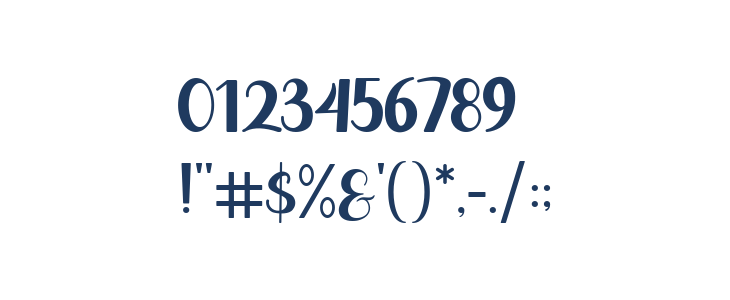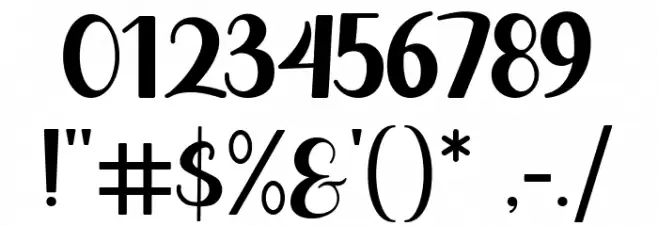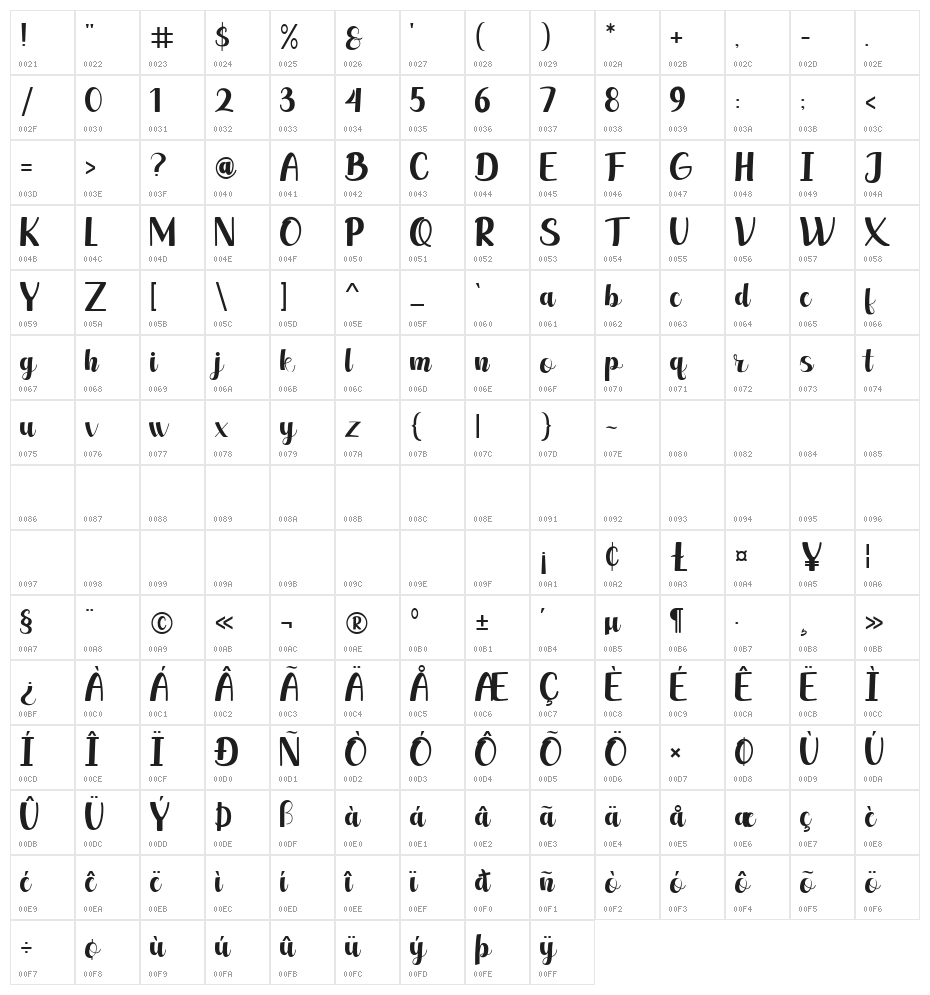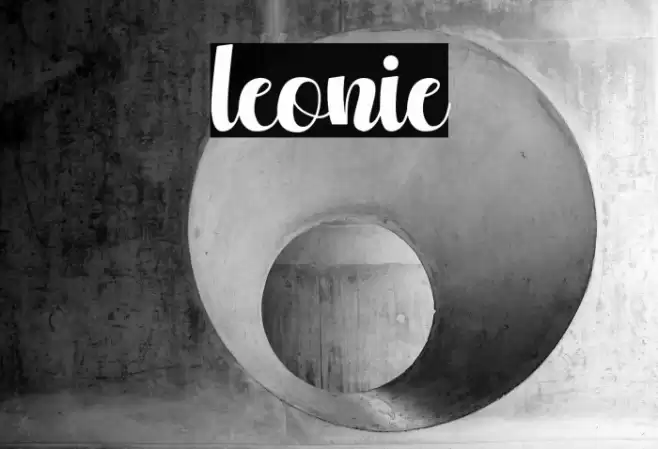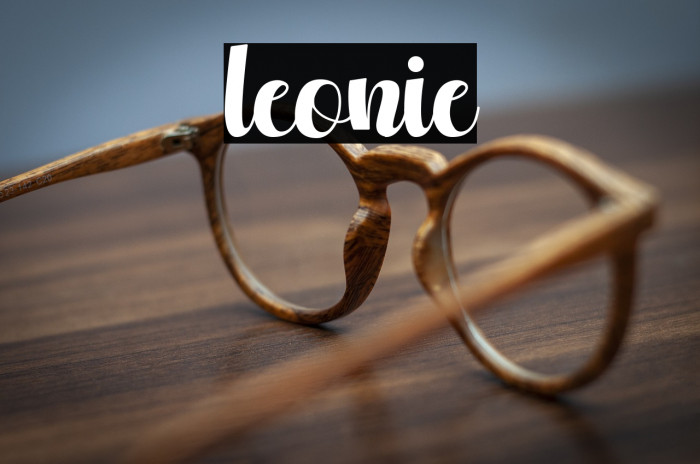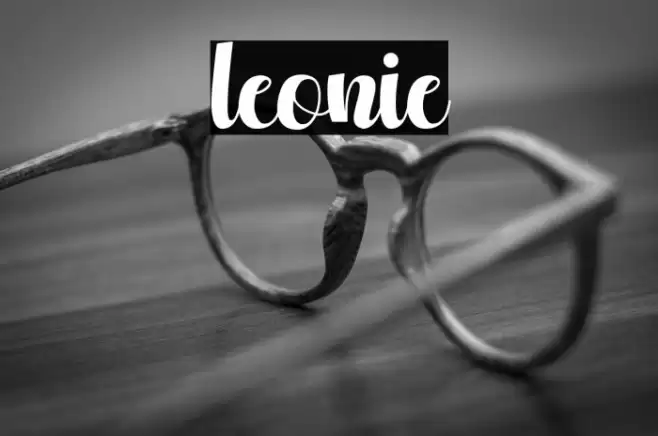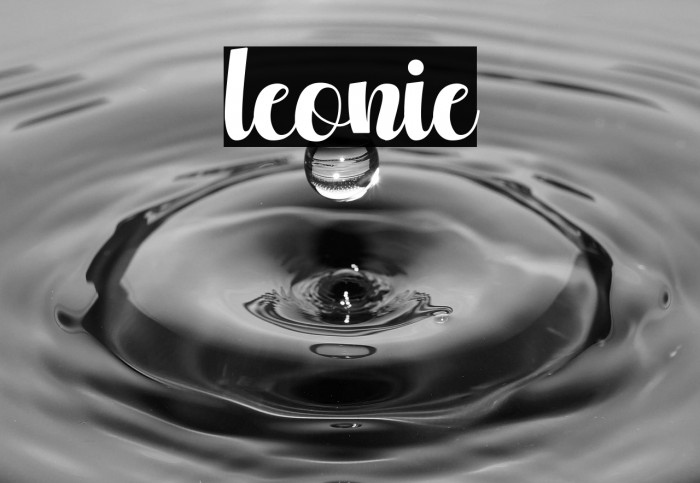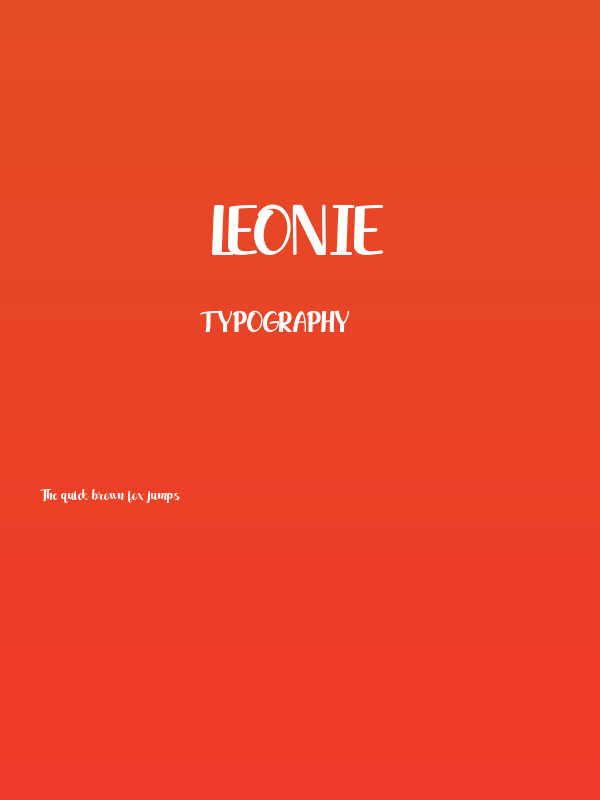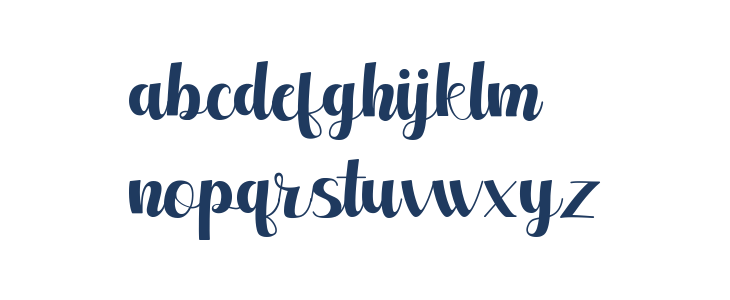
leonie Font
leonie Description
This font features a playful and dynamic style with a mix of thick and thin strokes, creating a lively and energetic appearance. The uppercase letters are bold and slightly condensed, while the lowercase letters exhibit a more flowing, script-like quality with elegant curves and loops. The numbers are consistent with the overall style, maintaining a balance between readability and decorative flair. Special characters are designed to match the whimsical nature of the font, making it suitable for creative and informal projects.
| Proposed Projects | Ideal for greeting cards, invitations, playful branding, and creative posters. |